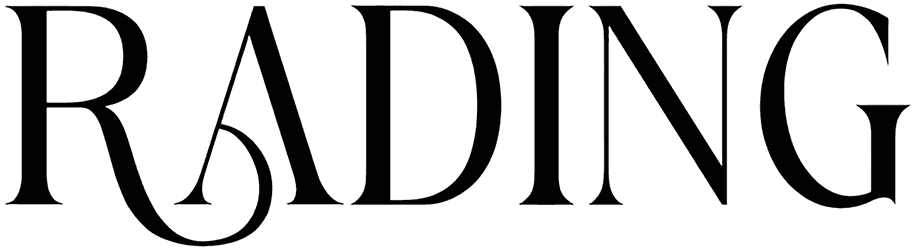
Rading Font
You were saying! So you have seen so many serif fonts before that you can no longer be amazed by anything? Aha! Then why are you so hooked up on Rading? Oh, we did forget to mention it’s also a ligature font. Surprise!
Looks like you can finally get down to business and finish that fashion business card you were so miserable with. But this time, you’re gonna enjoy it. Promise! Rading will be there on your side the whole time.